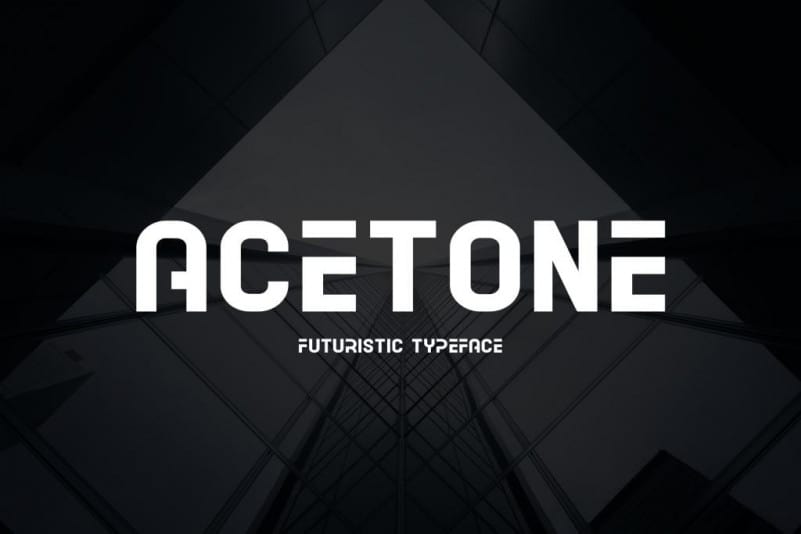
Acetone Font
acetone Font
Acetone Display Font is a new sans serif display font created by typefactory with a futuristic and modern look. Superstellar sans serif font family, which creates its modern structure inspired by the lines on electronic circuit boards, is a modern sans serif font. The font is suitable for creating wordmarks, titles, book cover, taglines, and interior theme.